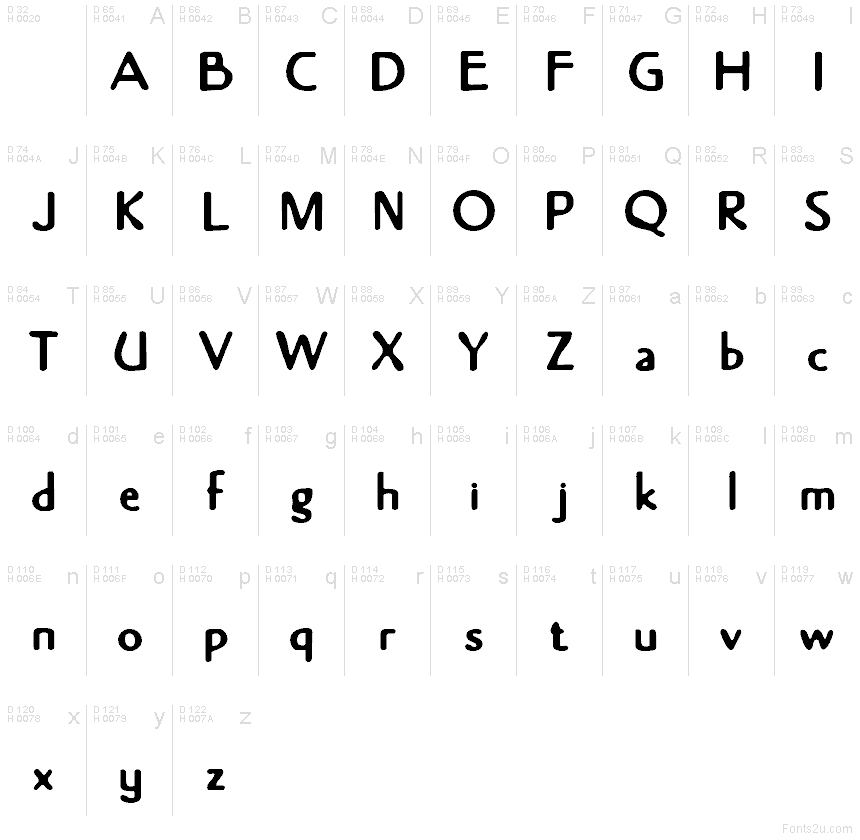
CS Briscoe Drawn font by Craft Supply Co. is a free medium eroded rounded sans display font. Built within the CS Briscoe family DNA, it keeps a friendly, geometric rhythm while roughing up the edges with subtle scuffs and inky pits. The result feels hand‑touched—soft corners, steady proportions, and just enough wear to add grit without hurting legibility.
Using CS Briscoe Drawn, headlines carry warmth and texture that shine on craft packaging, indie posters, café menus, badge logos, social graphics, and event branding. The spacing stays even, so you can scale it big and tighten tracking for punch. Pair this free font with CS Briscoe regular for body copy to balance the worn detailing with clean clarity.